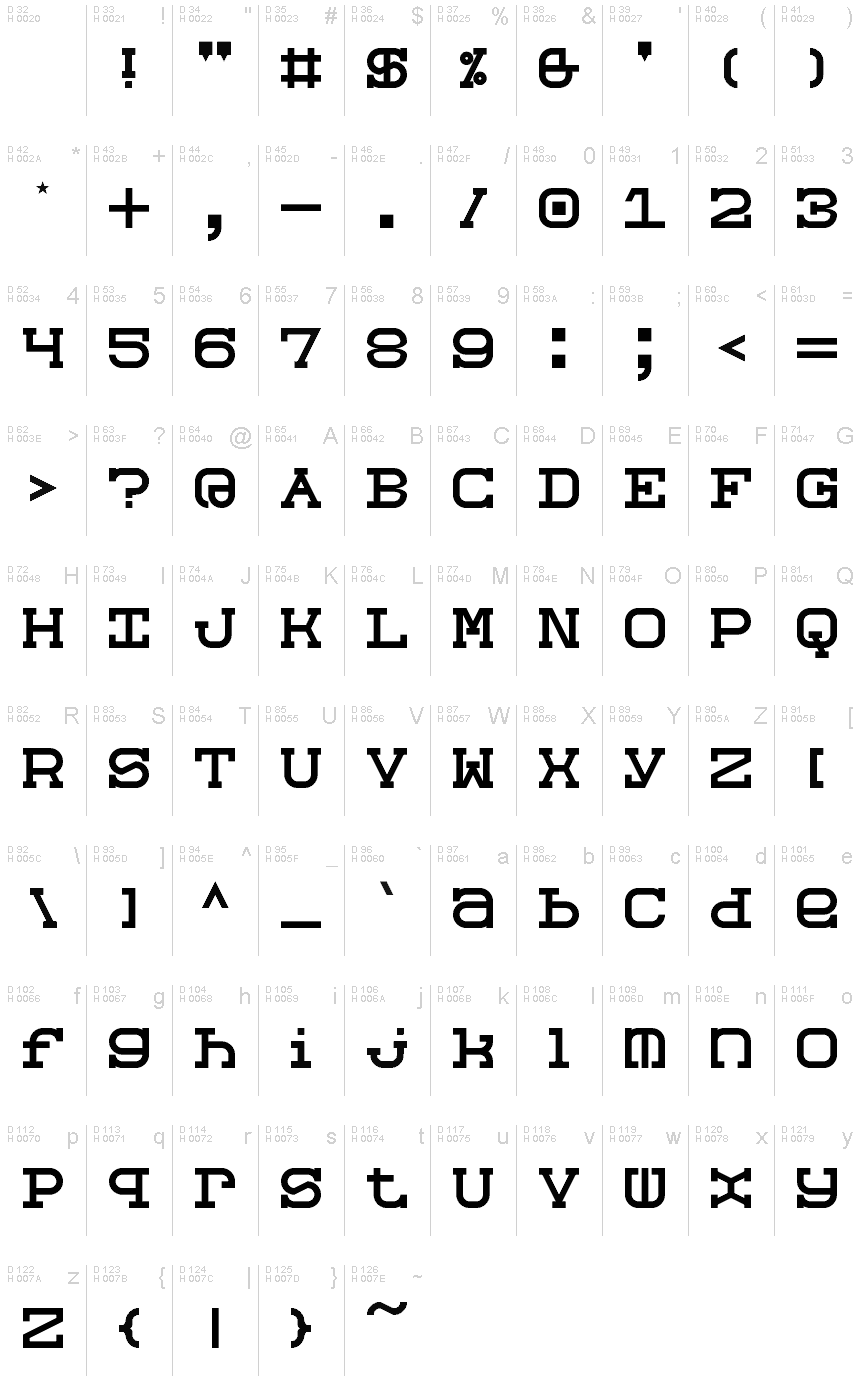
A slab serif design I created for "Wallerton, Anachronistic Gunslinger", a bad TV show I used to write and produce. This design is referred to as "the cowboy typewriter aesthetic".
<p>3x3 slab serif. This is based on <em>Wallerton, Anachronistic Gunslinger</em>, an IRC-based "TV show" which I used to write and produce. All the characters in the show were my AIs pretending they were cowboys.</p>
<p>Well, I managed to successfully produce a lowercase for this one!</p>
<p><strong>Recommended:</strong> Use with kerning.</p>